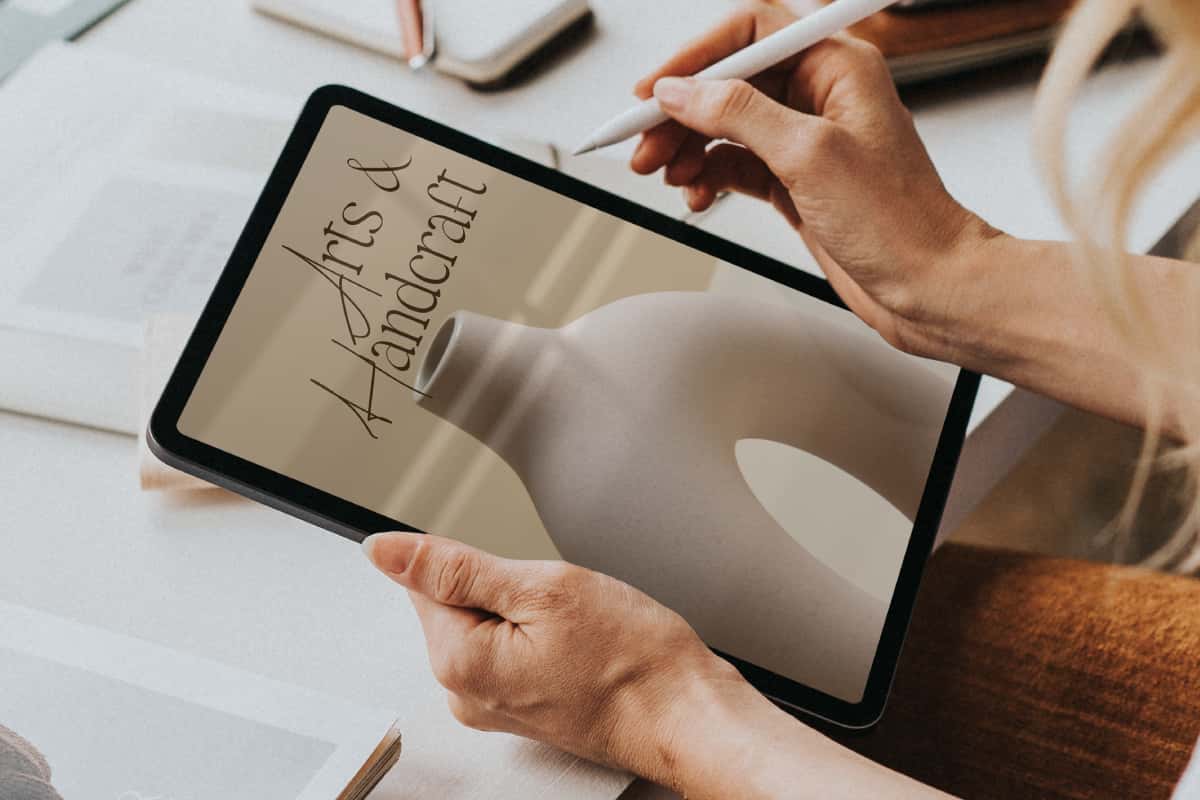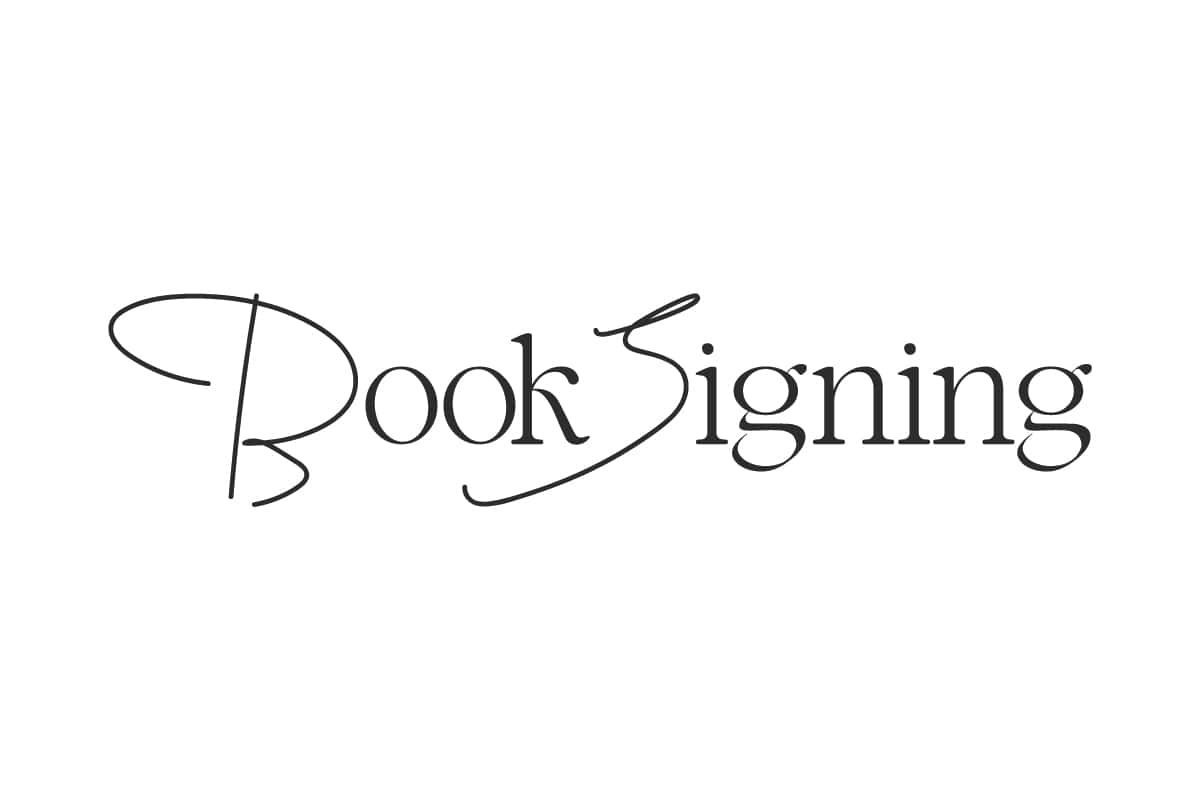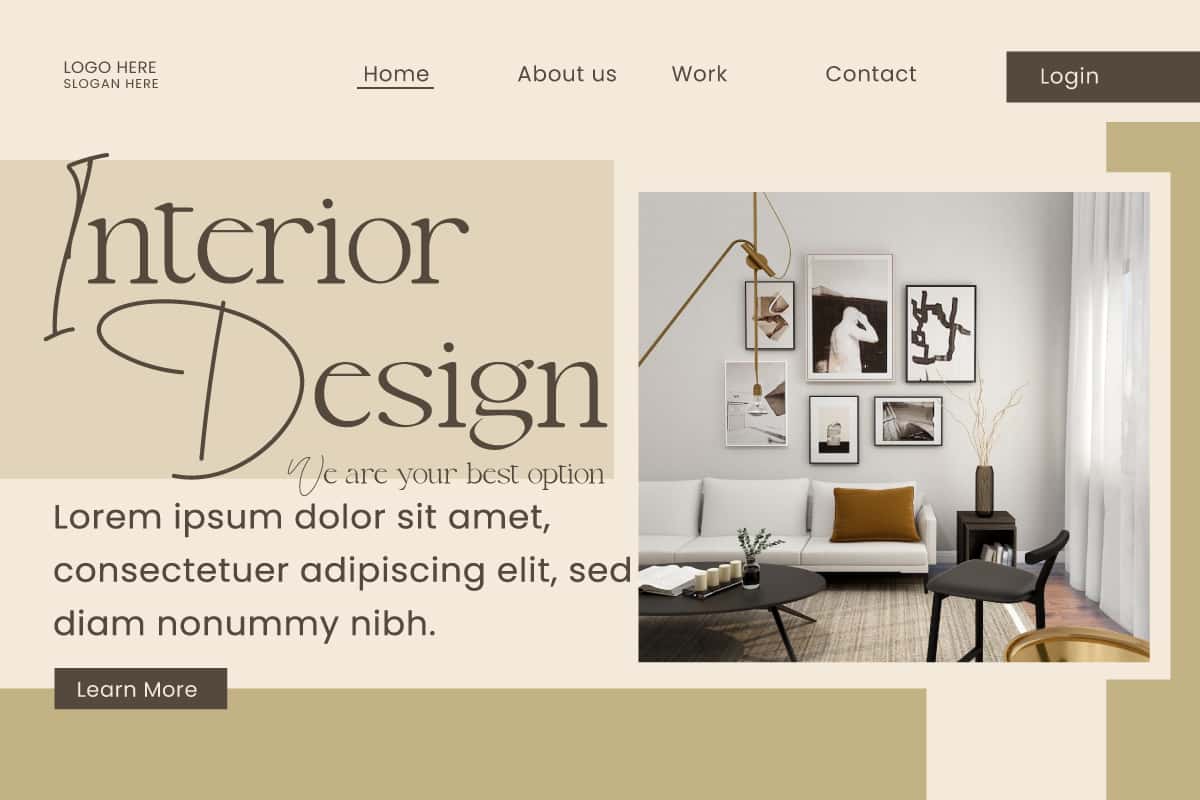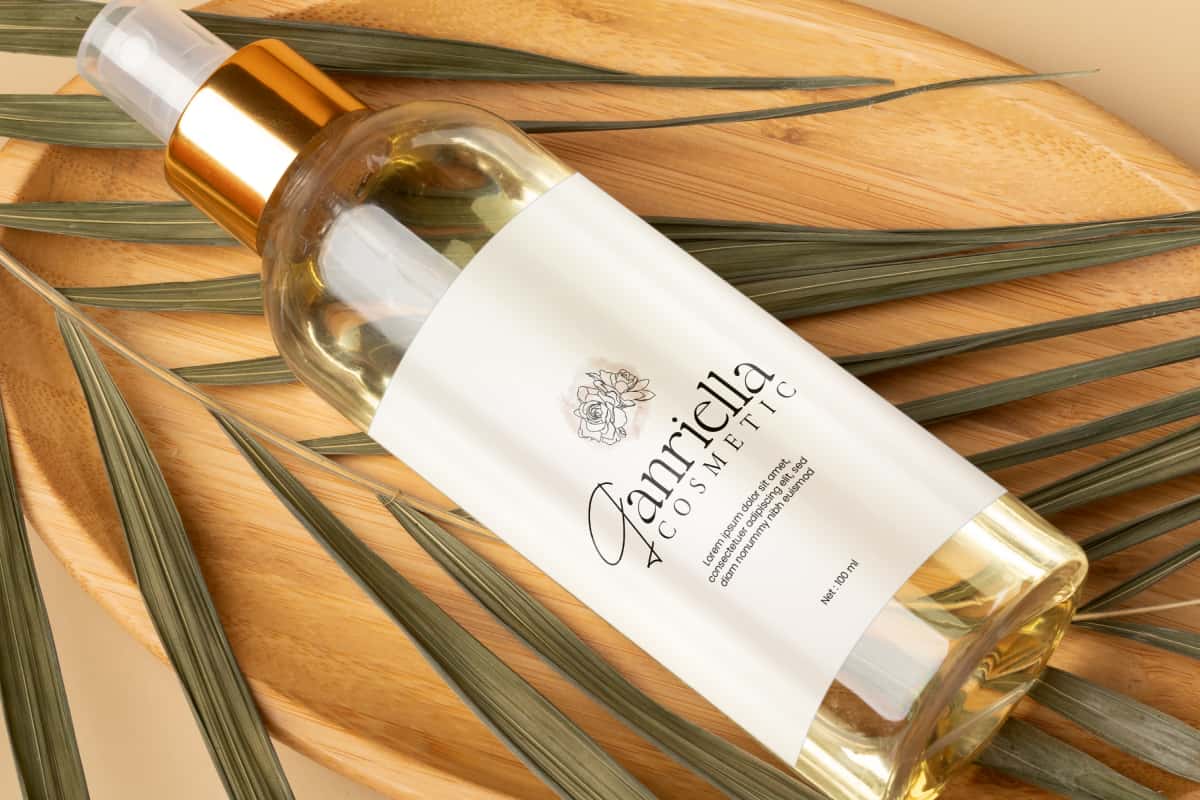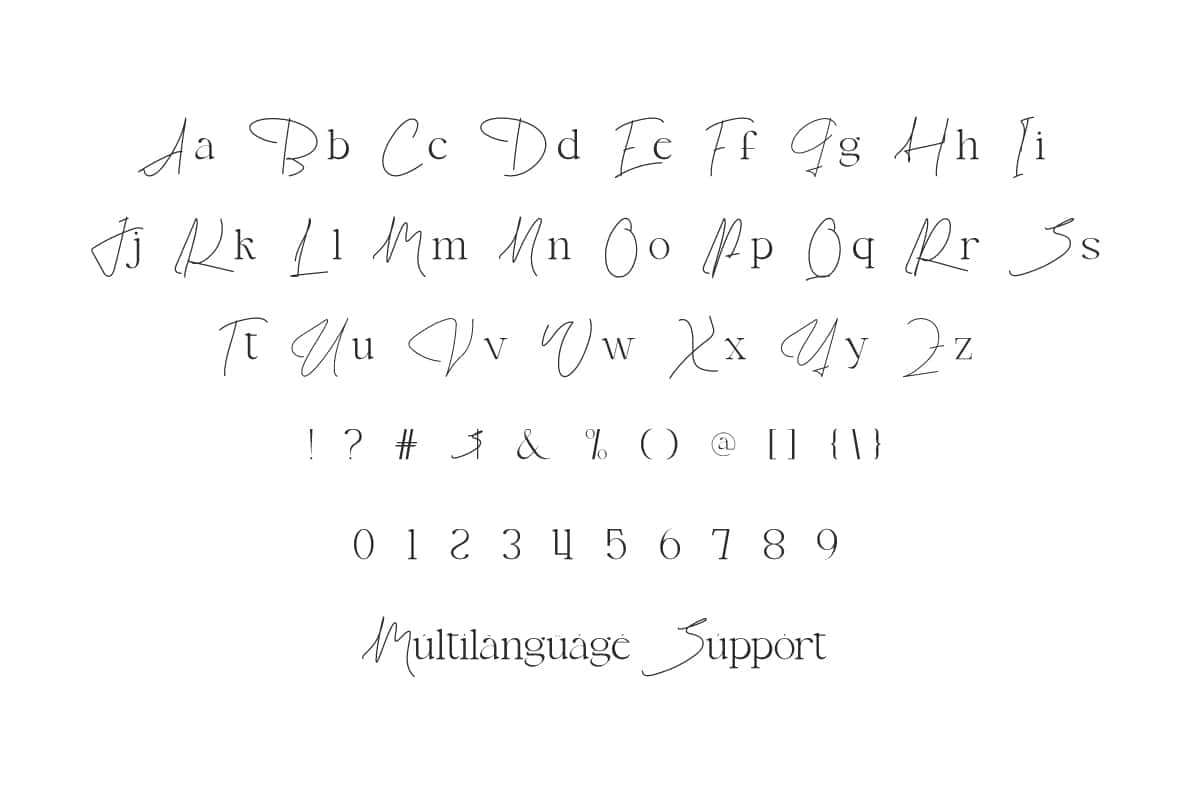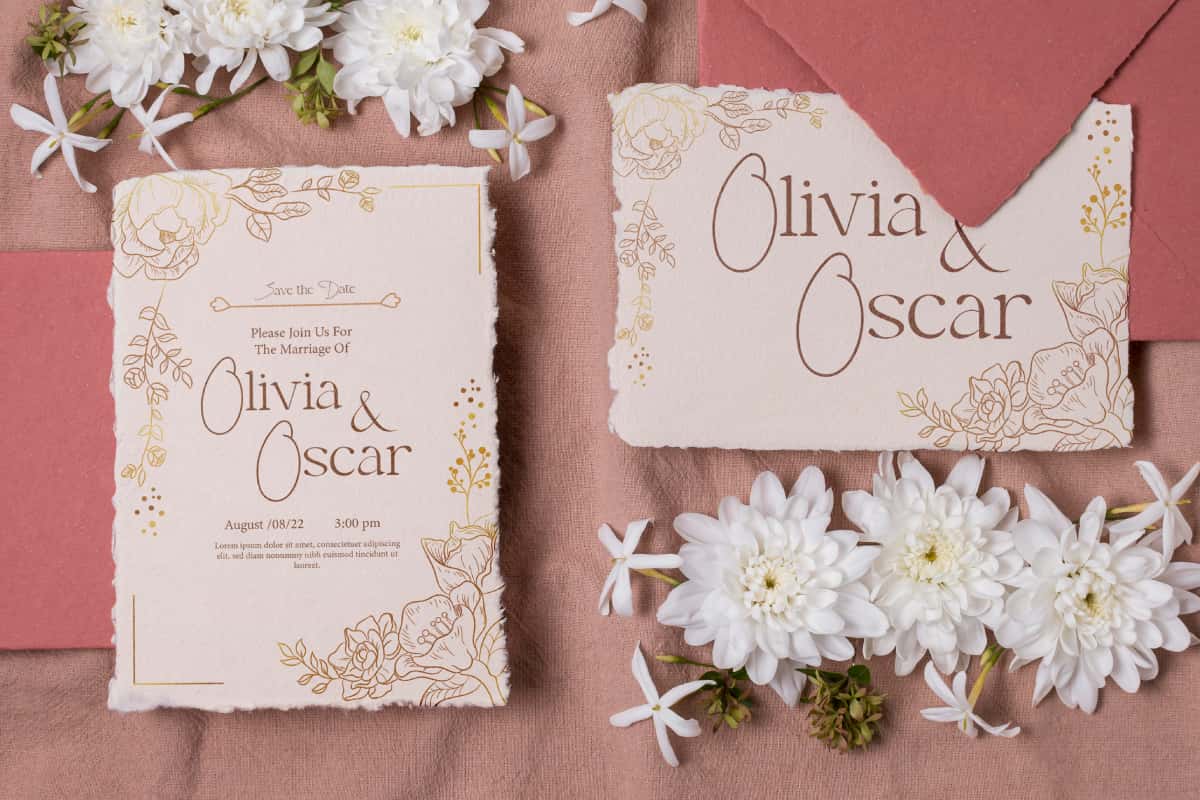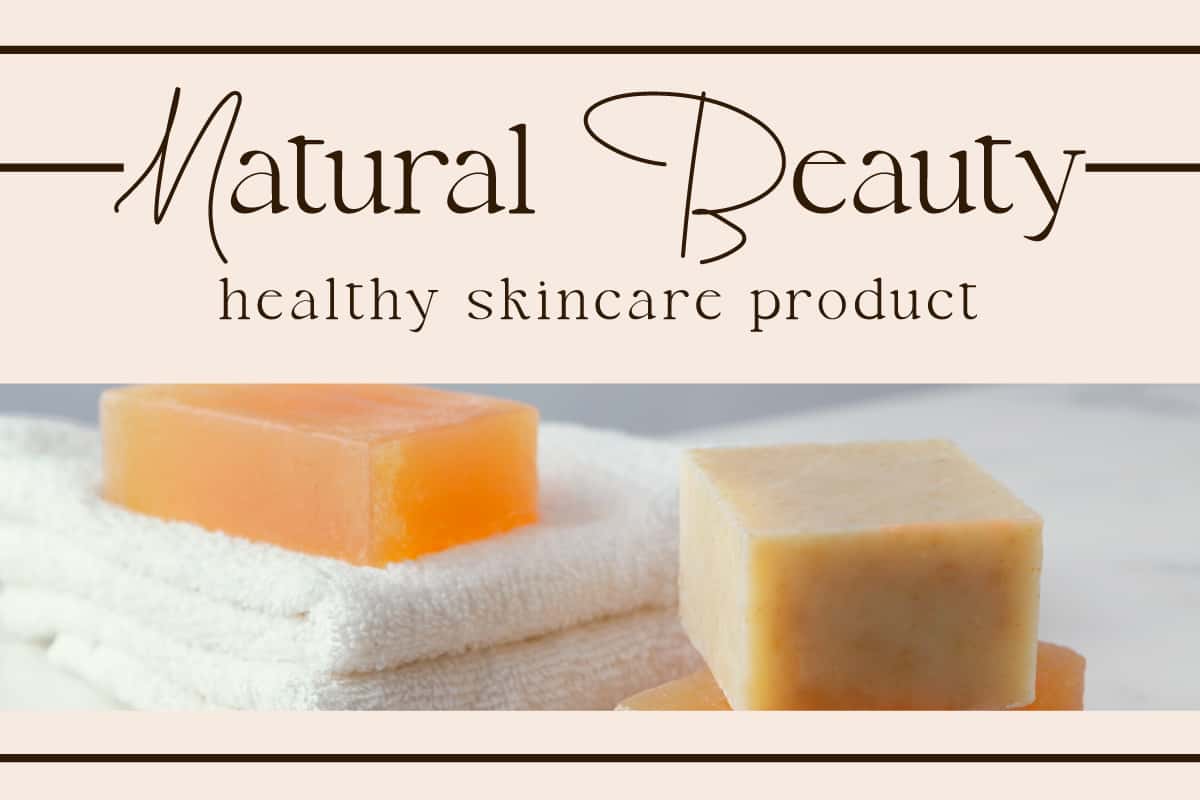
Book Signing Font is a charming font mix of graceful serifs and delicate signatures to add sophistication and charm to your design projects.
Book Signing Font is a luxurious display font from a blend of signature and serif styles. This perfect harmony presents a unique and impressive font. Keep your designs minimalist with a distinctive style using this font! Ideal for apps, blogs, branding, cover, headers, headline, invitation cards, labels, logos, packaging, poster, stickers, template, website, etc.
Book Signing Font comes with a complete set of Uppercase and Lowercase Basic Characters, Numbers, Punctuation, and Symbols. This font strikes a perfect balance between elegance and simplicity, not only that, this typeface is carefully crafted to ensure its premium quality and luxurious feel. Perfect for use in advertising, cosmetic, event organizer, home furniture, interior design, skincare, wedding, and many more.